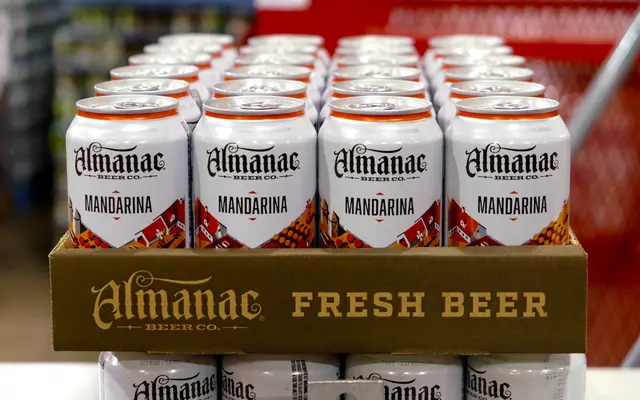
Abolition
Fort Foundry · Mattox Shuler · 2013
A condensed industrial sans in ten styles, derived from Bourbon and extensively revised in 2013, with rough and round stylistic variants.
Derived from Bourbon and heavily reworked, Abolition pairs a tightly condensed structure with an industrial character suited to display and poster use. Ten styles cover the family, ranging from Lines and Soft through to Rough and Round, each paired with an oblique. Stylistic alternates, tabular figures and broad Latin language support broaden its practical range beyond its rugged visual personality.
Condensed, industrial sans-serif with stylistic variants including rough and round treatments; the page categorises it as Sans but its display-oriented construction and textured variants place it firmly in the display category.